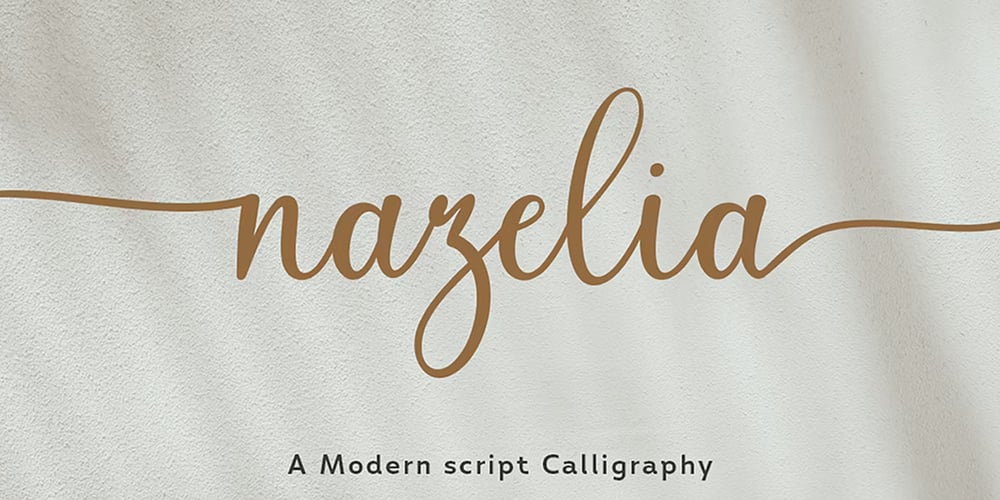
Nazelia Script
Nazelia Script font
Nazelia Script Font Family was designed by Alam Syahril and published by Realtype. Nazelia Script contains 1 styles and family package options. Introducing Nazelia Modern Script Calligraphy Font.This font very easy to use and really playful. You can explore to create a combination that would be nice. Comes with modern style, handmade and clean. Nazelia includes swashes, Alternate and International support for most Western Languages.Nazelia is perfect for product packaging, branding project, megazine, social media, wedding, wedding invitation cards, quotes, and more.Thank you!